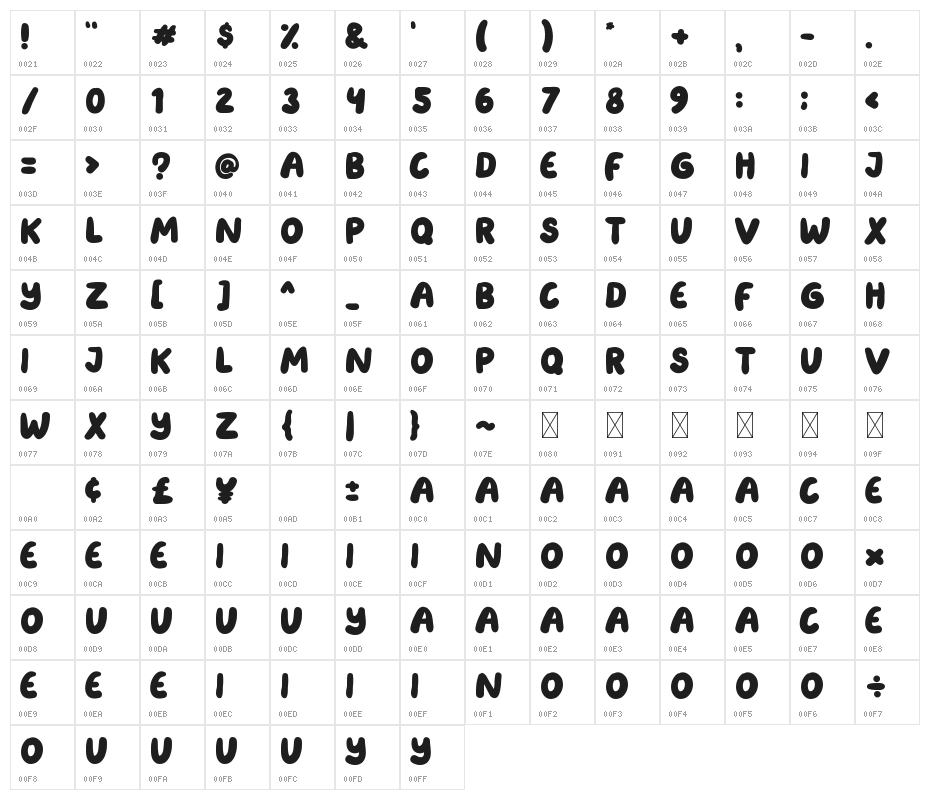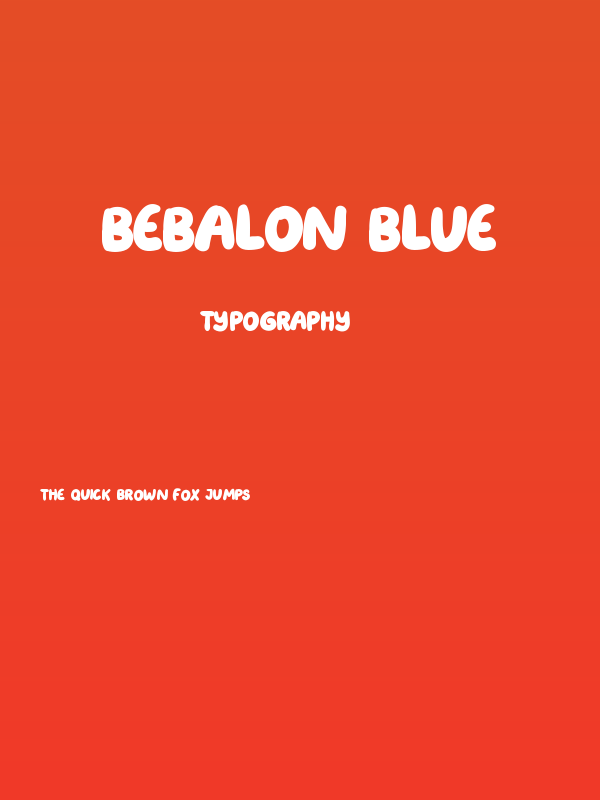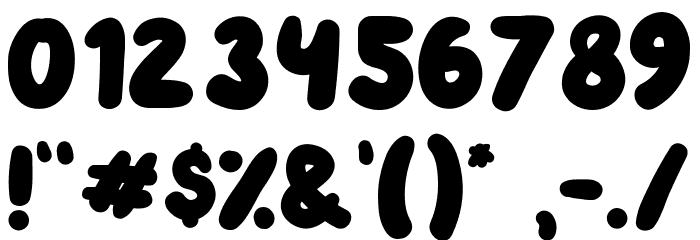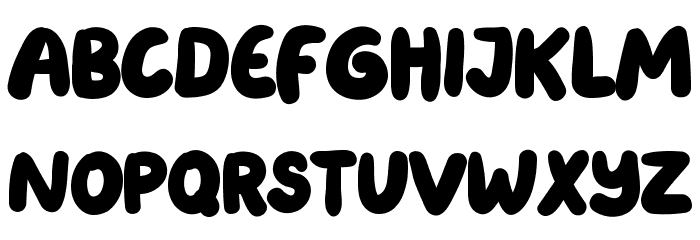
Bebalon Blue Font
Bebalon Blue Description
This playful and bold font features rounded, balloon-like characters that exude a sense of fun and whimsy. The letters are thick and have a uniform stroke width, giving them a consistent and cohesive appearance. The overall design is reminiscent of inflated balloons, making it ideal for projects that require a lighthearted and cheerful touch. The characters are well-spaced, ensuring readability while maintaining the playful aesthetic. This font is perfect for children's materials, party invitations, or any design that aims to convey joy and excitement.
| Proposed Projects | Ideal for children's books, party invitations, playful branding, and festive posters. |